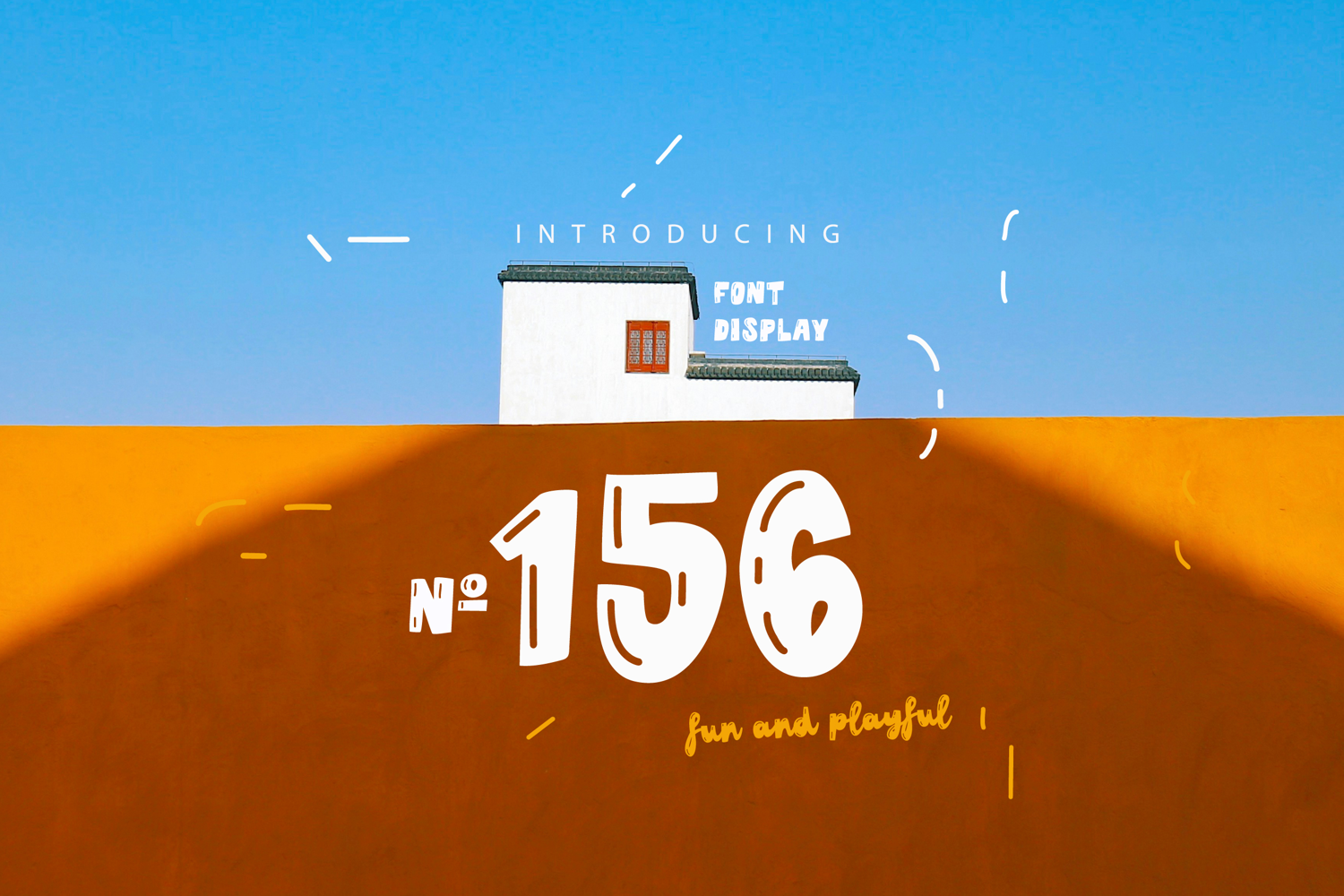
No. 156
Say hello to No.156 — a bold and bouncy display font full of fun, charm, and happy vibes! Its hand-drawn shapes and quirky letters make every word look friendly and full of character.
Perfect for kids projects, summer designs, party invitations, packaging, and playful branding. Whether you're creating a Halloween poster, a kids’ apparel label, or a cheerful social media quote, No.156 adds personality, joy, and warmth to your design.